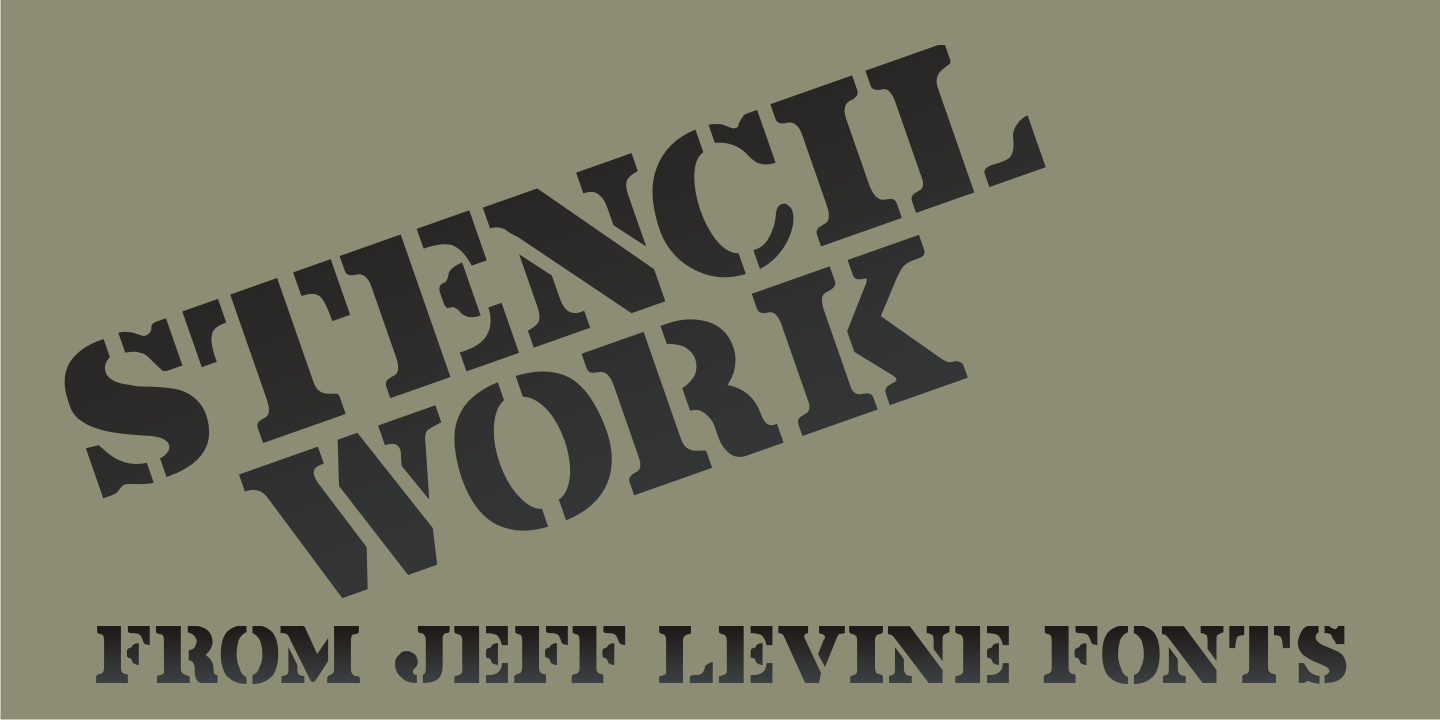
Stencil Work JNL Font is perfect for industrial warehouse signage, military equipment labeling, shipping container graphics, construction site displays, utility company markings, street art projects, vintage military reproductions, and rugged outdoor equipment branding. This utilitarian typeface excels in industrial environments, functional applications, and any project requiring practical durability that communicates working efficiency and industrial reliability through stenciled functional construction.
What makes Stencil Work JNL Font exciting is its remarkable ability to embody industrial functionality and practical efficiency through precisely stenciled letterforms that carry the essence of working environments and utilitarian purpose with unwavering clarity. The font features functionally designed characters with stencil cuts and industrial proportions that evoke feelings of practical reliability and working authenticity, making it ideal for brands seeking to establish connections with industrial workers and communicate through practical functional visual language. Its utilitarian presence ensures immediate recognition of industrial authenticity and working efficiency.
Stencil Work JNL Font family includes multiple weights and styles: Regular, Bold, Light, Medium variations, and industrial alternates with stencil embellishments and functional decorative elements. Each family member maintains the distinctive utilitarian character while offering comprehensive design options for industrial campaigns, from practical informational text to commanding stencil headlines that establish working authority and industrial credibility through functionally constructed typography.
Whether you're designing industrial brand identities or creating practical working campaigns, Stencil Work JNL Font Free Download provides the perfect typography solution for utilitarian branding needs. This font transforms ordinary text into functional industrial statements that communicate working reliability and practical efficiency. Industrial companies and utility services choose this typeface for its ability to convey practical durability through functionally stenciled letterforms that work through designs with industrial precision and celebrate the enduring value of practical functionality.